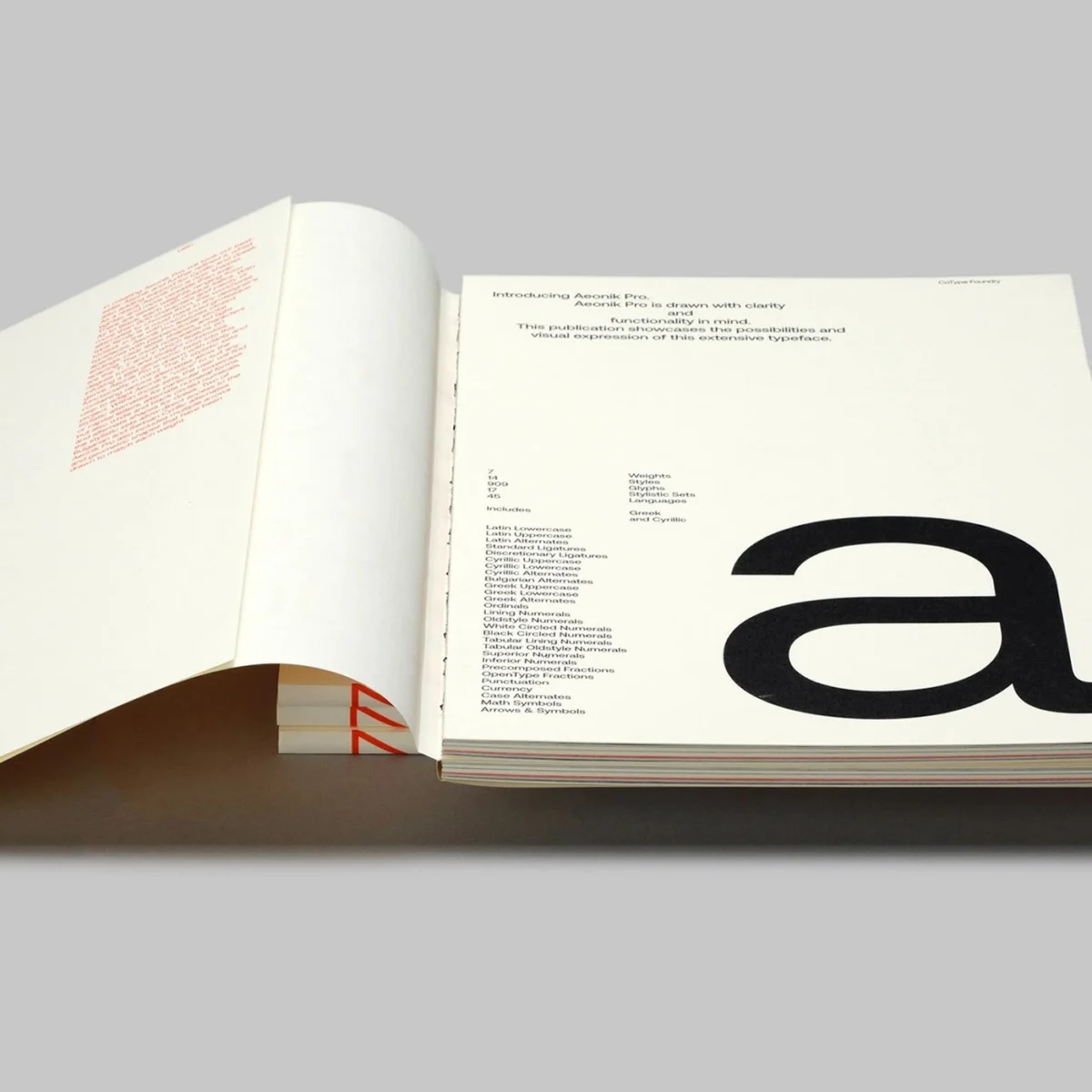
July 24, 2026, marks a significant moment in contemporary typography with the unveiling of the Aeonik Pro sans-serif variable font specimen, a project meticulously crafted by the renowned design studio Mash Creative. This comprehensive typographic system, distinguished by its clear visual tension and disciplined execution, sets a new benchmark for font design and presentation. The specimen, a testament to thoughtful design and technical prowess, was developed to showcase the expanded capabilities and refined aesthetic of the Aeonik Pro typeface, affirming its position as a versatile and robust tool for designers across various disciplines.
Unveiling the Core Design Philosophy: Visual Tension and Modular Precision
At the heart of the Aeonik Pro specimen lies a profound exploration of typographic scale and visual rhythm, meticulously orchestrated by Mash Creative. The design philosophy is immediately apparent: characters align to an exceptionally disciplined modular grid, a foundational element that imparts stability and order to the entire system. This adherence to a precise grid is not merely an aesthetic choice but a functional one, ensuring consistency and clarity across all applications. Each glyph within the Aeonik Pro family exhibits sharp geometric details, contributing to a clean, modern aesthetic that is both precise and impactful. The letterforms collectively present a strong visual rhythm, guiding the reader’s eye effortlessly across layouts.
The deliberate creation of "clear visual tension" is a hallmark of this specimen. This tension is not chaotic but rather a carefully managed interplay of elements, achieved through intense typographic scaling and a sophisticated understanding of spacing. The balance of positive and negative space is masterfully handled, with negative space actively contributing to the overall design rather than merely existing between elements. This active use of whitespace creates dynamic compositions, enhancing legibility and visual interest. Margins are meticulously defined, creating a clean outer frame that further emphasizes the precision of the inner content. These fundamental design decisions collectively define the sophisticated visual tone of Aeonik Pro, allowing the typeface itself to be the protagonist without the need for superfluous decoration. This restraint underscores Mash Creative’s deep understanding of typographic principles and their commitment to functional elegance.
The Specimen Project: A Tactile and Visual Exploration
To adequately present the multifaceted capabilities of Aeonik Pro, Mash Creative collaborated with Semiotik Design to produce a pair of print books, each serving a distinct purpose in showcasing the typeface. This dual-book approach demonstrates a comprehensive strategy for font presentation, moving beyond simple digital previews to offer a tangible, immersive experience.
The smaller of the two books is dedicated to an in-depth exploration of the individual glyph structures. This intimate format allows for a forensic examination of the sharp geometric details and the disciplined construction of each character. Designers can scrutinize the subtle curves, precise angles, and consistent proportions that define Aeonik Pro’s unique identity. Such a detailed presentation is crucial for type designers and graphic artists who require a thorough understanding of a typeface’s micro-details before integrating it into their projects.
Complementing this granular view, the larger book delves into the expansive layout possibilities offered by Aeonik Pro. This volume showcases the typeface in various contexts, demonstrating its versatility across different weights, sizes, and applications. From editorial spreads to branding elements, the layouts illustrate how Aeonik Pro maintains its clarity and visual impact under diverse conditions. The strong compositional tension identified as a core characteristic of the typeface is vividly displayed here, demonstrating how different weights and styles can be harmoniously combined to create dynamic and engaging designs.
The material choices for these specimen books further elevate the presentation. High-quality paper stocks were selected not only for their durability but also for the tactile contrast they provide. The decision to use black ink on white stock adds depth and reinforces the visual clarity, ensuring that the intricate details of the typography remain highly legible. This classic monochromatic palette highlights the pure form of the letterforms, preventing any distraction from color. Precise ink coverage on every page speaks to the exceptional quality of the printing, contributing to the overall premium feel of the final product. The secure binding ensures longevity, cementing the specimen books as valuable reference tools rather than ephemeral marketing collateral. Strong hierarchies are established to organize all text elements, allowing for easy navigation and comprehension of the typeface’s features, while the simple color system employed throughout the books consistently serves to highlight the form details, rather than overshadowing them.
The Evolution of Aeonik Pro: From Foundation to Global Reach
The Aeonik Pro sans-serif variable font specimen is not merely a showcase of a new font but a declaration of a new standard in type design. Mash Creative’s work builds upon the foundation of the original Aeonik typeface family, expanding its capabilities and extending its reach. A pivotal enhancement in this new version is the comprehensive support for Cyrillic and Greek scripts, alongside the existing Latin alphabet. This multilingual expansion significantly broadens Aeonik Pro’s utility, making it a truly versatile modern tool for designers working across diverse linguistic and cultural contexts. The ability to maintain a consistent brand voice and aesthetic across multiple languages is a critical requirement in today’s globalized design landscape, and Aeonik Pro adeptly meets this challenge.
The typeface’s aesthetic choices, characterized by their clean and disciplined nature, deliberately reference classic modernist layout design principles. This connection to a rich historical tradition of clarity, functionality, and geometric precision imbues Aeonik Pro with a timeless quality. Yet, despite its historical grounding, the typeface remains highly relevant for contemporary digital media. Its crispness, legibility, and adaptability make it exceptionally well-suited for a wide array of digital applications, from user interfaces and web content to dynamic digital displays and motion graphics. The inherent flexibility of a variable font, a key technical innovation, further amplifies its modern utility, allowing for unparalleled control over typographic expression.
The Rise of Variable Fonts: Technical Innovation and Creative Freedom
The Aeonik Pro’s status as a variable font is a critical aspect of its significance. Variable font technology, an OpenType font format innovation, allows a single font file to contain a continuous range of design variations along one or more axes, such as weight, width, slant, or optical size. This contrasts sharply with traditional font families that require separate files for each weight and style (e.g., Light, Regular, Bold, Italic).
The advantages of variable fonts are manifold and have profound implications for the design industry. Firstly, they significantly reduce file sizes, leading to faster loading times for websites and digital applications. This is a crucial performance metric in an era where user experience and page speed are paramount. A single variable font file can replace numerous static font files, streamlining web development and improving overall efficiency. Secondly, variable fonts offer unprecedented creative freedom. Designers gain granular control over typography, enabling subtle adjustments to weight or width that were previously impossible without custom font modifications. This allows for highly nuanced typographic expressions, adaptive designs that respond to screen sizes or user preferences, and dynamic animations that bring text to life. The ability to interpolate between design extremes opens up a vast spectrum of possibilities for responsive design and brand consistency across diverse platforms.
The market demand for such versatile typefaces is steadily growing. Brands are increasingly seeking robust and adaptable font systems that can maintain their integrity and distinctiveness across an ever-expanding array of digital and print touchpoints. Aeonik Pro, with its expanded linguistic support and variable font capabilities, is perfectly positioned to serve as a cornerstone for such comprehensive brand identities. Industry observers suggest that the adoption of variable fonts, while still maturing, is on an upward trajectory, driven by both technical advantages and the boundless creative opportunities they present.
Implications for the Design Industry
The release of the Aeonik Pro sans-serif variable font specimen carries significant implications for the broader design industry. For studios and individual designers, it provides a powerful, multi-purpose tool that can elevate the quality and efficiency of their work. The consistency and clarity inherent in Aeonik Pro make it ideal for corporate branding, editorial design, digital product interfaces, and advertising campaigns where precision and impact are paramount. The inclusion of Cyrillic and Greek support also addresses a critical need in global communication, enabling seamless internationalization of design projects without compromising typographic integrity.
Furthermore, Mash Creative’s commitment to high-quality print specimens reinforces the enduring value of physical presentation in an increasingly digital world. While digital font previews are convenient, a beautifully crafted print specimen offers a tactile experience that allows designers to fully appreciate the nuances of a typeface – its ink spread, its interaction with paper texture, and its physical presence on a page. This holistic approach to font presentation is a valuable lesson for the industry, emphasizing that the experience of a typeface extends beyond its pixels on a screen.
The design team’s avoidance of unnecessary decoration and their emphasis on fundamental typographic principles also serve as a reminder of the timeless power of well-executed simplicity. In a design landscape often saturated with fleeting trends, Aeonik Pro stands as an example of enduring quality, rooted in modernist ideals but innovated for contemporary demands. This balance of classicism and modernity ensures its long-term relevance and potential for widespread adoption across various design disciplines.
Mash Creative’s Legacy and Future Outlook
Mash Creative, with this project, reaffirms its reputation as a leading voice in contemporary graphic and type design. Their deep understanding of typography, evidenced by the meticulous execution of the Aeonik Pro specimen, positions them at the forefront of innovation. The work not only builds on their existing legacy but also contributes significantly to the evolution of type design by embracing cutting-edge variable font technology while honoring historical design principles. The studio’s ability to create a typographic system that is both aesthetically refined and technically advanced ensures that Aeonik Pro will likely grow in popularity and influence, becoming a go-to choice for designers seeking clarity, versatility, and impactful visual communication.
The Aeonik Pro sans-serif variable font specimen is more than just a collection of letters; it is a meticulously engineered system designed to empower creativity and enhance communication across a global stage. Its precise geometry, balanced spacing, and controlled visual tension underscore a design philosophy that champions clarity and effectiveness, making it an invaluable asset for the future of visual design.